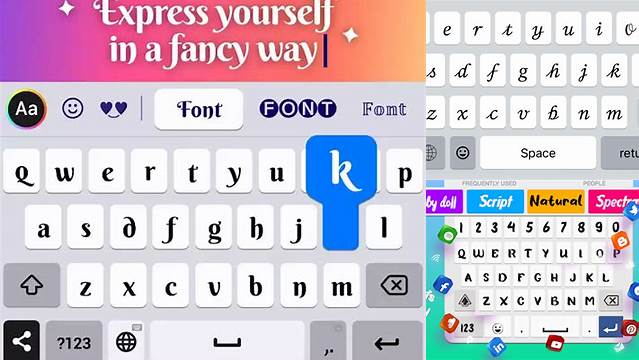
Stylish Fonts Keyboard For Samsung: Your Ultimate Guide
Hey guys! Ever feel like your phone's keyboard is a little… blah? You're not alone! We all crave a little personalization in our digital lives, and one of the easiest ways to spice things up is by changing your font. If you're a Samsung user, you're in luck! There's a whole world of stylish fonts keyboard for Samsung out there just waiting to be explored. This guide is your one-stop shop for everything you need to know about finding, installing, and using custom fonts on your Samsung device. So, let's dive in and make your keyboard as unique as you are!
1. What are Stylish Fonts Keyboards for Samsung?
Stylish fonts keyboards for Samsung are basically keyboard apps that allow you to use a variety of cool and unique fonts instead of the default system font. These apps often come packed with dozens, if not hundreds, of different font styles, from elegant scripts to funky block letters. They're a fantastic way to add personality to your texts, social media posts, and emails. Think of it as giving your words a makeover! Stylish fonts keyboard for Samsung can be integrated directly into your phone's system, so you can use them across all your applications. This means you can type in a cool font in your messaging apps, your notes app, your email app, and even in your browser. The options are limitless, making your communication stand out from the crowd and allowing you to express yourself in a fun and visually appealing manner. So, if you're looking to add a bit of flair to your digital communications, exploring stylish fonts keyboards for Samsung is definitely worth it.
2. Why Use a Stylish Fonts Keyboard?
Okay, so why bother with a stylish fonts keyboard? Well, there are tons of reasons! First off, it's a super easy way to personalize your phone. We all spend so much time on our devices, why not make them reflect our individual styles? Using a stylish fonts keyboard for Samsung is a simple yet effective way to do just that. It's like giving your phone a mini-makeover every time you switch fonts! But it's not just about aesthetics. Using different fonts can also make your messages more expressive. A playful font can add a touch of fun to a casual text, while an elegant font can give your emails a more professional feel. Plus, let's be honest, sometimes the default font can get a little boring. A stylish fonts keyboard injects some fresh energy into your daily typing, making your phone experience more enjoyable overall. Beyond the personal touch, using stylish fonts can also help you stand out on social media. Imagine crafting captions or posts with unique fonts that perfectly match your brand or personality. It's a fantastic way to catch the eye of your followers and make a lasting impression. So, whether you're looking to add a touch of fun, express your individuality, or simply break away from the mundane, a stylish fonts keyboard for Samsung is a great tool to have in your digital arsenal.
3. Top Stylish Font Keyboard Apps for Samsung
Alright, so you're sold on the idea of a stylish fonts keyboard, but where do you start? Don't worry, we've got you covered! There are a bunch of awesome apps out there that offer a wide range of fonts for your Samsung device. Some popular options include Fonts Keyboard, Stylish Text, and iFont. Each app has its own unique features and font collections, so it's worth exploring a few to find the perfect fit for you. Fonts Keyboard, for example, is known for its user-friendly interface and extensive library of fonts. Stylish Text, on the other hand, is a great choice if you're looking for more than just fonts – it also offers a variety of other text styling options, like bold, italics, and underline. iFont is particularly popular for its compatibility with a wide range of Samsung devices and its ability to install fonts system-wide. When choosing an app, consider factors like the number of fonts available, the ease of use, and any additional features you might find helpful. Many apps offer a free trial or a limited version, so you can test them out before committing to a purchase. Remember, the best stylish fonts keyboard for Samsung is the one that best suits your individual needs and preferences. So, take some time to explore the options and find the perfect match for your personal style.
5. Using Your New Stylish Font Keyboard
Okay, you've installed your new stylish fonts keyboard for Samsung – awesome! Now, let's get to the fun part: actually using it! Most stylish fonts keyboards are super user-friendly. Once you've enabled the keyboard and set it as your default, it should pop up automatically whenever you tap on a text field. To switch between fonts, there's usually a dedicated button or icon on the keyboard itself. It might look like a little "F" or a stylized "Aa," or it might be a menu button that opens a font selection screen. Tapping this button will usually bring up a list of all the available fonts. Simply scroll through the list, previewing each font as you go, and tap on the one you want to use. The keyboard will then switch to that font, and everything you type will appear in that style. Some apps also offer additional customization options, such as changing the keyboard theme, size, or layout. These settings can usually be found within the keyboard app itself or in your phone's keyboard settings. Don't be afraid to experiment with different fonts and settings to find the perfect combination that suits your style. Remember, the whole point of using a stylish fonts keyboard is to express yourself and add a personal touch to your communications. So, have fun with it and let your creativity shine!
6. Finding the Perfect Font for You
With so many fonts to choose from, finding the perfect one for you can feel a little overwhelming. But don't worry, it's all part of the fun! A good place to start is by thinking about the overall style you're going for. Are you looking for something elegant and sophisticated? Or something playful and quirky? Maybe something bold and attention-grabbing? Once you have a general idea in mind, you can start browsing the font collections in your chosen keyboard app. Pay attention to the different categories and styles that are available. You might find categories like "Script," "Serif," "Sans-serif," "Display," or "Handwritten." Each category has its own distinct look and feel. Script fonts, for example, often have a flowing, cursive style, while sans-serif fonts tend to be more clean and modern. Don't be afraid to try out different fonts in different contexts. A font that looks great in a social media post might not be the best choice for a formal email. Consider the message you're trying to convey and the audience you're communicating with. It's also a good idea to think about readability. While some fonts might look super cool, they might not be the easiest to read, especially in long paragraphs or on smaller screens. Choose fonts that are both stylish and legible. Ultimately, the best font for you is the one that you love and that reflects your personality. So, take your time, explore the options, and have fun finding your perfect font!
7. Customizing Your Keyboard Further
Using a stylish fonts keyboard for Samsung is a fantastic way to personalize your phone, but why stop there? Many keyboard apps offer a whole host of other customization options that can help you create a truly unique typing experience. One popular option is keyboard themes. Many apps allow you to change the colors, backgrounds, and even the key shapes of your keyboard. You might be able to choose from pre-designed themes or create your own custom theme from scratch. This is a great way to match your keyboard to your phone's overall aesthetic or to express your personal style. Another customization option is keyboard size and layout. Some apps allow you to adjust the size of the keys to better fit your fingers, or to switch between different keyboard layouts, such as QWERTY, Dvorak, or AZERTY. This can be particularly helpful if you have larger fingers or if you're used to typing on a different keyboard layout. Many stylish fonts keyboard for Samsung apps also offer advanced features like autocorrect, predictive text, and gesture typing. These features can help you type faster and more accurately. You can usually customize these features to your liking, such as turning autocorrect on or off, or adjusting the sensitivity of the gesture typing. Finally, some apps offer additional features like clipboard management, shortcut keys, and even built-in translation tools. These features can make your keyboard even more powerful and versatile. So, don't just settle for a stylish font – explore all the customization options your keyboard app has to offer and create a typing experience that's truly your own!
8. Fonts for Different Occasions
Just like you wouldn't wear the same outfit to a wedding and a casual hangout, you might not want to use the same font for every occasion. The font you choose can subtly influence the tone and message of your communication. For formal emails or professional documents, it's best to stick with classic, legible fonts like Times New Roman, Arial, or Calibri. These fonts are clean, professional, and easy to read, ensuring that your message comes across clearly and effectively. For more casual communications, like texts or social media posts, you have a lot more freedom to experiment with different fonts. A playful, handwritten-style font can add a touch of personality to a casual text, while a bold, sans-serif font can help you grab attention on social media. If you're creating a visual design, like a poster or a presentation, you can use fonts to create a specific mood or atmosphere. A script font might be perfect for a romantic or elegant design, while a futuristic font could be a great choice for a tech-themed project. When choosing fonts for different occasions, it's important to consider your audience and the overall message you're trying to convey. Think about the context in which the font will be used and choose one that aligns with your goals. Don't be afraid to mix and match different fonts, but be sure to do so thoughtfully and intentionally. A well-chosen font can be a powerful tool for communication, so take the time to select the right one for the job!
9. Combining Fonts for Impact
While using a stylish fonts keyboard for Samsung is awesome, sometimes, one font just isn't enough! Combining different fonts can add visual interest and impact to your designs and communications. But like mixing patterns in fashion, there's an art to combining fonts effectively. The key is to create contrast without creating chaos. A good rule of thumb is to pair a display font (a font that's designed to be eye-catching and attention-grabbing) with a more readable body font. The display font can be used for headings, titles, or short bursts of text, while the body font should be used for longer paragraphs or blocks of text. When choosing fonts to combine, look for fonts that have complementary styles. For example, you might pair a bold sans-serif font with a delicate script font, or a classic serif font with a modern sans-serif font. The goal is to create a visual hierarchy that guides the reader's eye and makes the text easy to read. Avoid using too many different fonts in one design. Two or three fonts are usually enough. Using too many fonts can make your design look cluttered and unprofessional. Pay attention to the spacing between lines and letters when combining fonts. Proper spacing is essential for readability. Adjust the line height and letter spacing as needed to create a balanced and visually appealing design. With a little practice, you can master the art of combining fonts and create designs that are both stylish and effective.
10. Stylish Fonts for Social Media
Social media is all about making a statement, and using stylish fonts is a fantastic way to do just that! A stylish fonts keyboard for Samsung can help you create eye-catching posts, captions, and bios that stand out from the crowd. But which fonts are best for social media? It really depends on your personal style and the message you're trying to convey. For a fun and playful vibe, you might choose a handwritten-style font or a quirky display font. These fonts are great for casual posts and captions, and they can add a touch of personality to your social media presence. If you're going for a more sophisticated or professional look, you might opt for a classic serif font or a clean sans-serif font. These fonts are ideal for business-related posts or for creating a polished and professional image on social media. Bold fonts can be a great choice for headlines or for emphasizing important words or phrases. Just be careful not to overuse them, as too much bold text can be overwhelming. Script fonts can add a touch of elegance and flair to your social media posts, but they can also be difficult to read if used in large blocks of text. Use them sparingly, and make sure the font is legible on smaller screens. When choosing fonts for social media, it's important to consider the platform you're using. Some platforms have limitations on the types of fonts you can use, so be sure to check the platform's guidelines before you start creating your content. With a little creativity and experimentation, you can use stylish fonts to create a social media presence that's uniquely you!